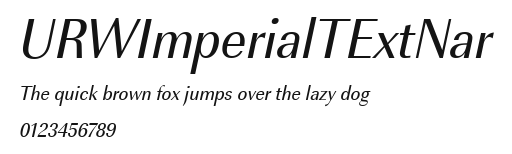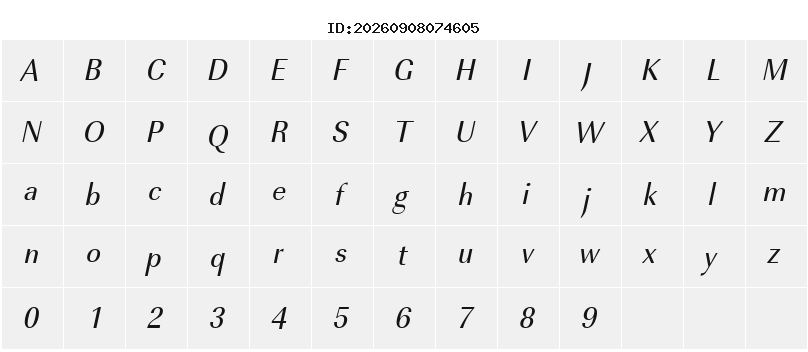
URWImperialTExtNar Preview
• Font Name: URWImperialTExtNar
• Font Style: Oblique
• Font ID: URW:URWImperialT-ReguExtrNarrObli:1994
• Full Font Name: URWImperialTExtNar Oblique
• PostScript Name: URWImperialT-ReguExtrNarrObli
About URWImperialTExtNar.ttf
URWImperialTExtNar.ttf is a modern, elegant sans-serif font designed for ultimate readability and visual harmony. Perfect for branding, headlines, web design, and print materials.